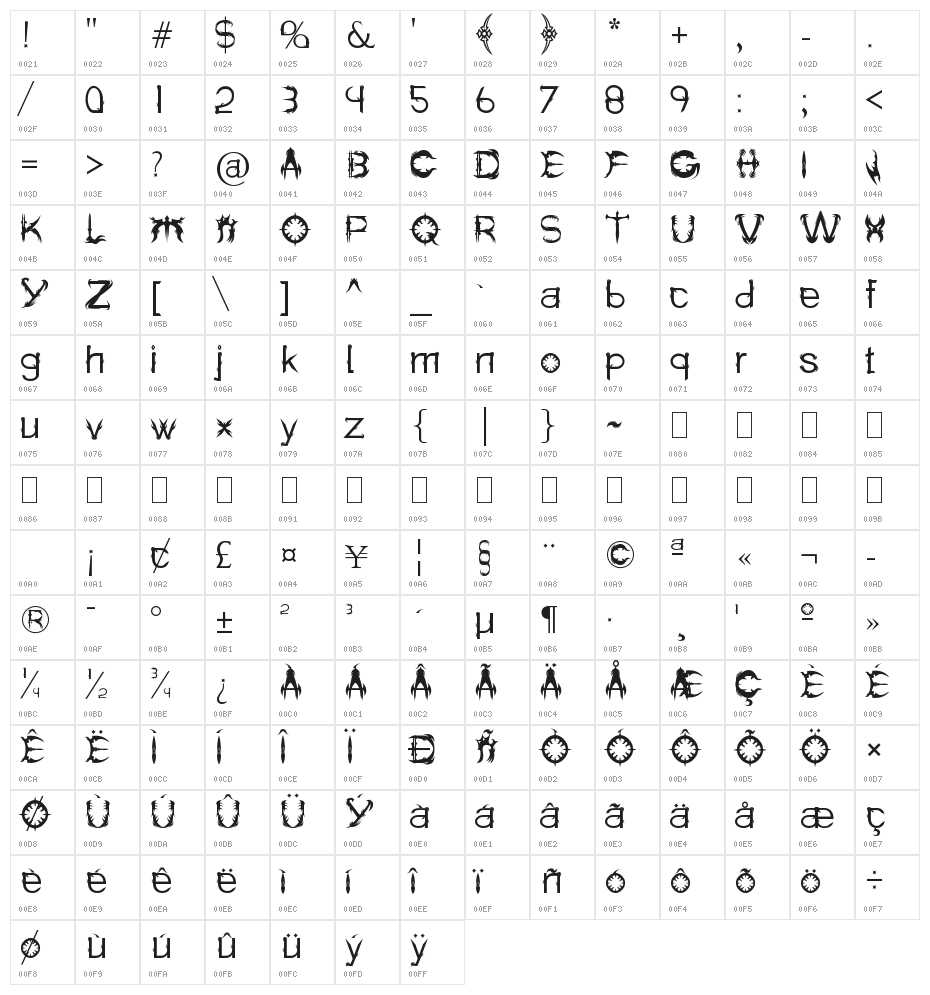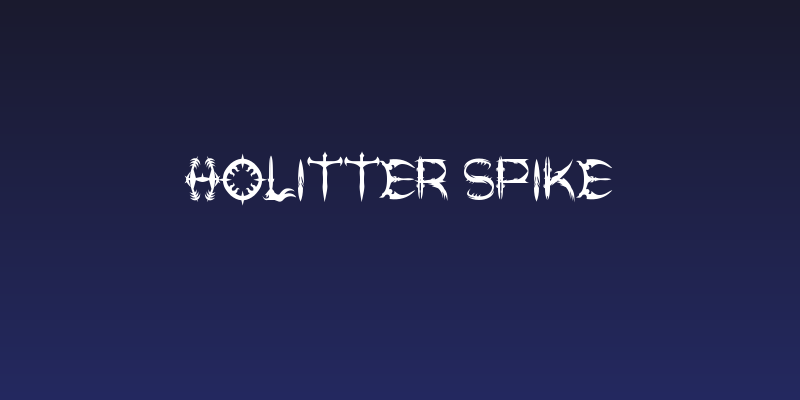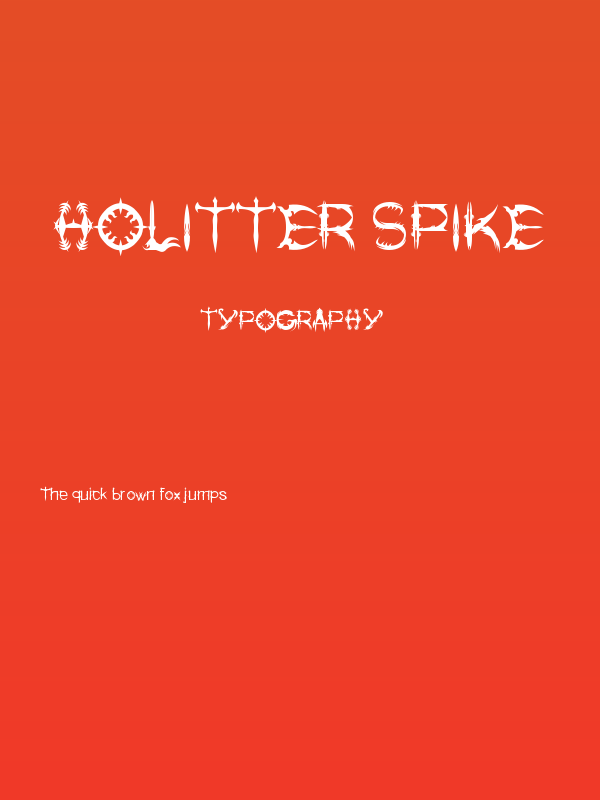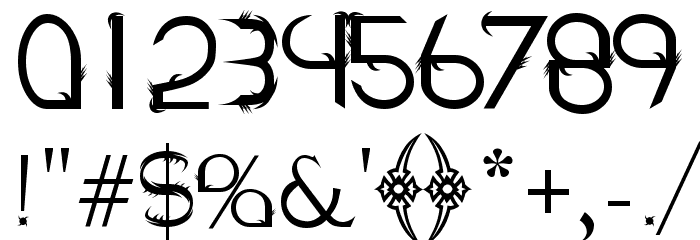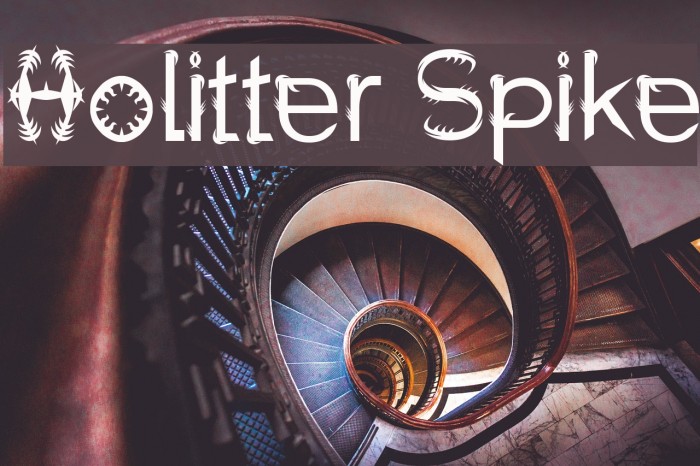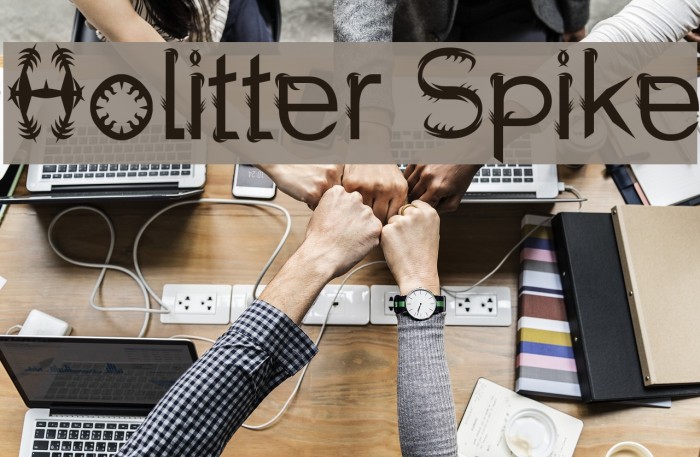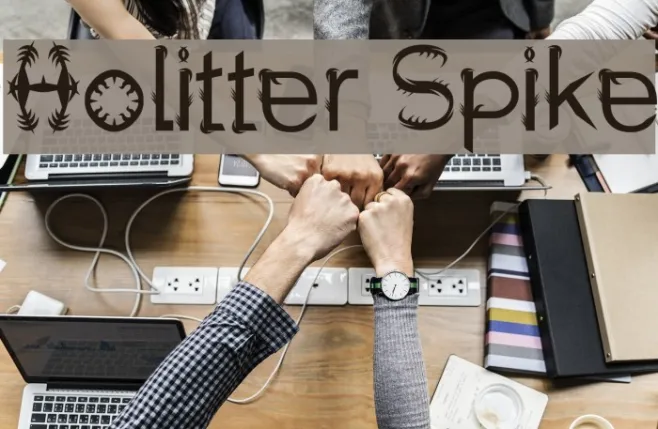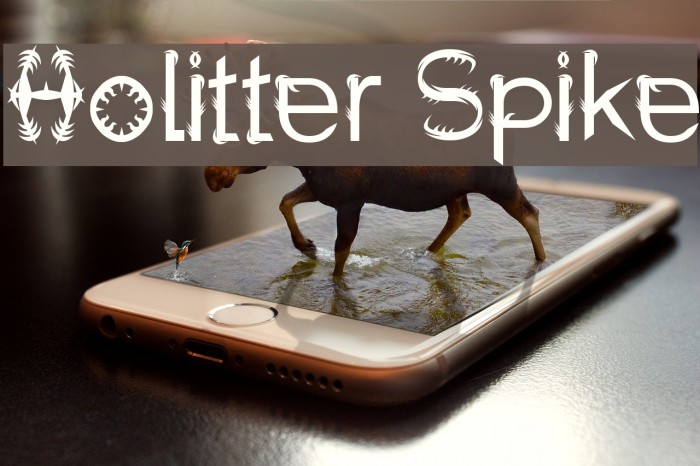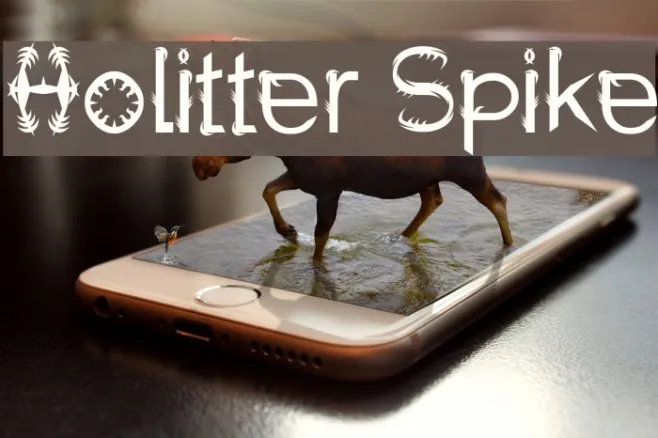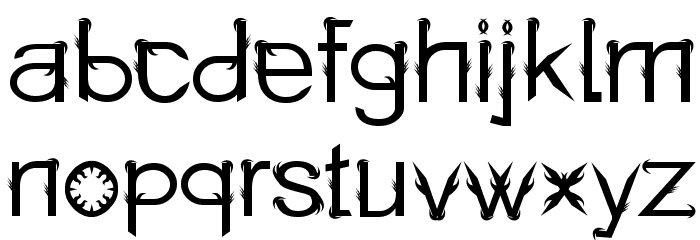
Holitter Spike Font
Holitter Spike Description
This font features a distinctive and edgy design, characterized by sharp, spiky elements that extend from the main strokes of each character. The uppercase letters are particularly bold, with intricate details that give them a unique, almost gothic appearance. The lowercase letters maintain a more streamlined look, yet still incorporate subtle spiked accents. Numbers and special characters follow the same design principles, ensuring a cohesive aesthetic throughout. The overall style is highly decorative, making it ideal for projects that require a bold and unconventional typeface.
| Proposed Projects | Ideal for album covers, posters, and branding projects that require a bold, eye-catching typeface. |